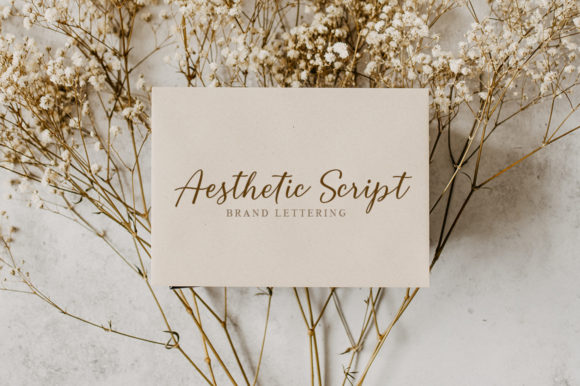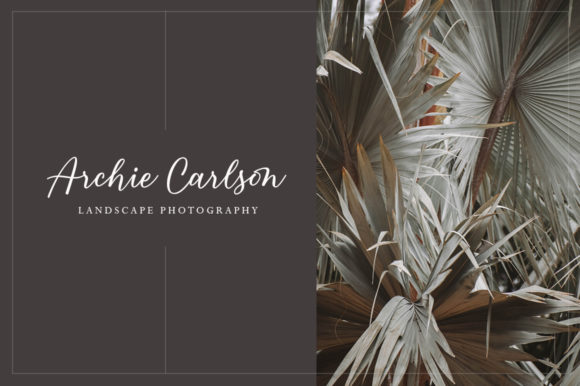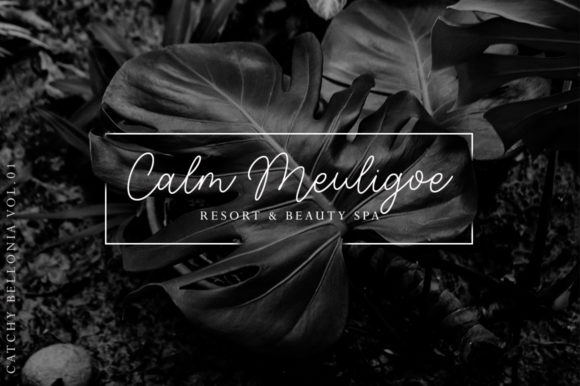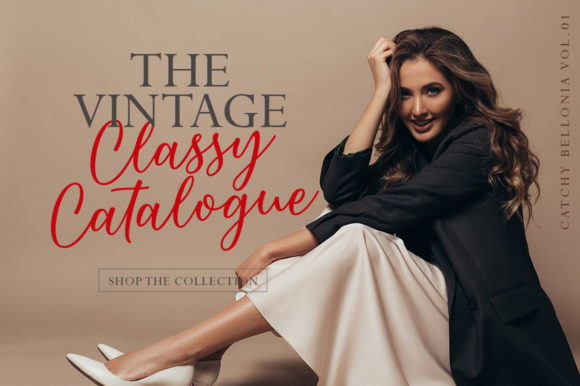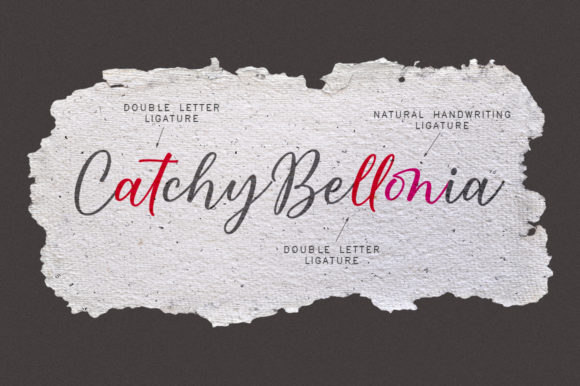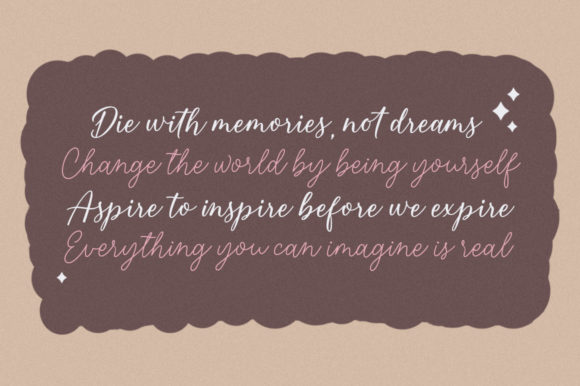
The Perfect Font to Elevate Your Creative Projects
Have you ever stared at a blank page, desperately searching for the perfect font to bring your design to life? We’ve all been there. The moment of clarity hits, and you find the perfect font that captures the essence of your project. For designers, this moment is a game-changer. It’s the difference between a good design and a great one.
Enter the Catchy Bellonia Font, a beautiful and relaxed cursive script font designed to enhance the beauty of your projects. With its balanced and varied strokes, this font is perfect for adding a touch of elegance to your designs. Whether you’re working on a wedding invitation, a blog post, or a social media graphic, the Catchy Bellonia Font is sure to make a lasting impression.
As a PUA-encoded font, Catchy Bellonia Font offers easy access to all its glyphs, making it a valuable addition to any designer’s toolkit. So why settle for an ordinary font when you can have a Catchy Bellonia Font that truly stands out?
Catchy Bellonia Font Key Features
- Font Family: Bellonia, with 8 styles (Light, Regular, Medium, Bold, Black, Italic, Bold Italic, Black Italic)
- Font Size: Supports font sizes from 8pt to 72pt, with optimal readability at 12pt and above
- Resolution: Supports resolutions up to 300 DPI, suitable for print and digital use
- Unique Characteristics: Catchy Bellonia features a modern, elegant design with a touch of sophistication, making it ideal for creative projects, branding, and advertising
- Language Support: Supports over 200 languages, including Latin, Cyrillic, Greek, and many more
Catchy Bellonia Font Review
Overall, I’d say the Catchy Bellonia Font is a decent addition to any designer’s toolkit. Here’s what I like about it: ✨ It’s got a playful, whimsical feel that’s perfect for branding or advertising projects that need a bit of flair. ✨ The font is highly customizable, with plenty of options for adjusting letter spacing, line height, and more. ✨ It’s also surprisingly legible, even at smaller font sizes.
However, there are a few limitations to consider: ⚠️ The font can feel a bit over-the-top if used too extensively. I’ve seen projects where the Bellonia Font is used for every single element, and it starts to feel like a gimmick rather than a genuine design choice. ⚠️ The font also doesn’t include a full range of languages, which can be a problem for projects that require multilingual support.
- Great for branding, advertising, and other projects that need a bit of flair.
- Highly customizable, with plenty of options for adjusting font settings.
- Legible even at smaller font sizes.
- Can feel over-the-top if used too extensively.
- Does not include a full range of languages.
Overall, I’d recommend the Catchy Bellonia Font for designers who want to add a bit of personality to their projects. Just be sure to use it thoughtfully and in moderation.
For the most out of the Catchy Bellonia Font, use it for headings, titles, and short paragraphs. This font is ideal for creating visually appealing headings and titles for websites, social media, and marketing materials. It’s also suitable for creating engaging titles for presentations, reports, and documents.